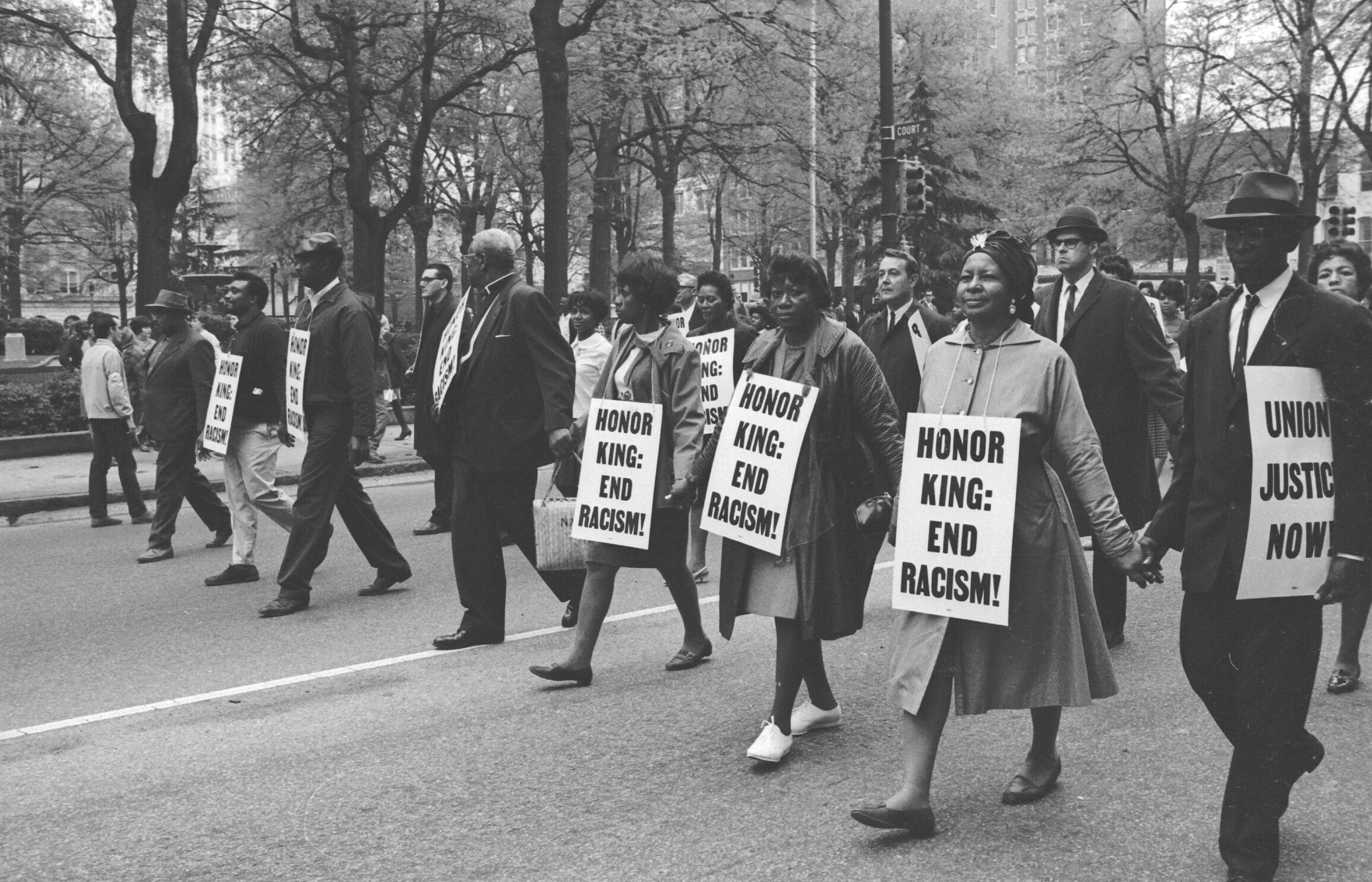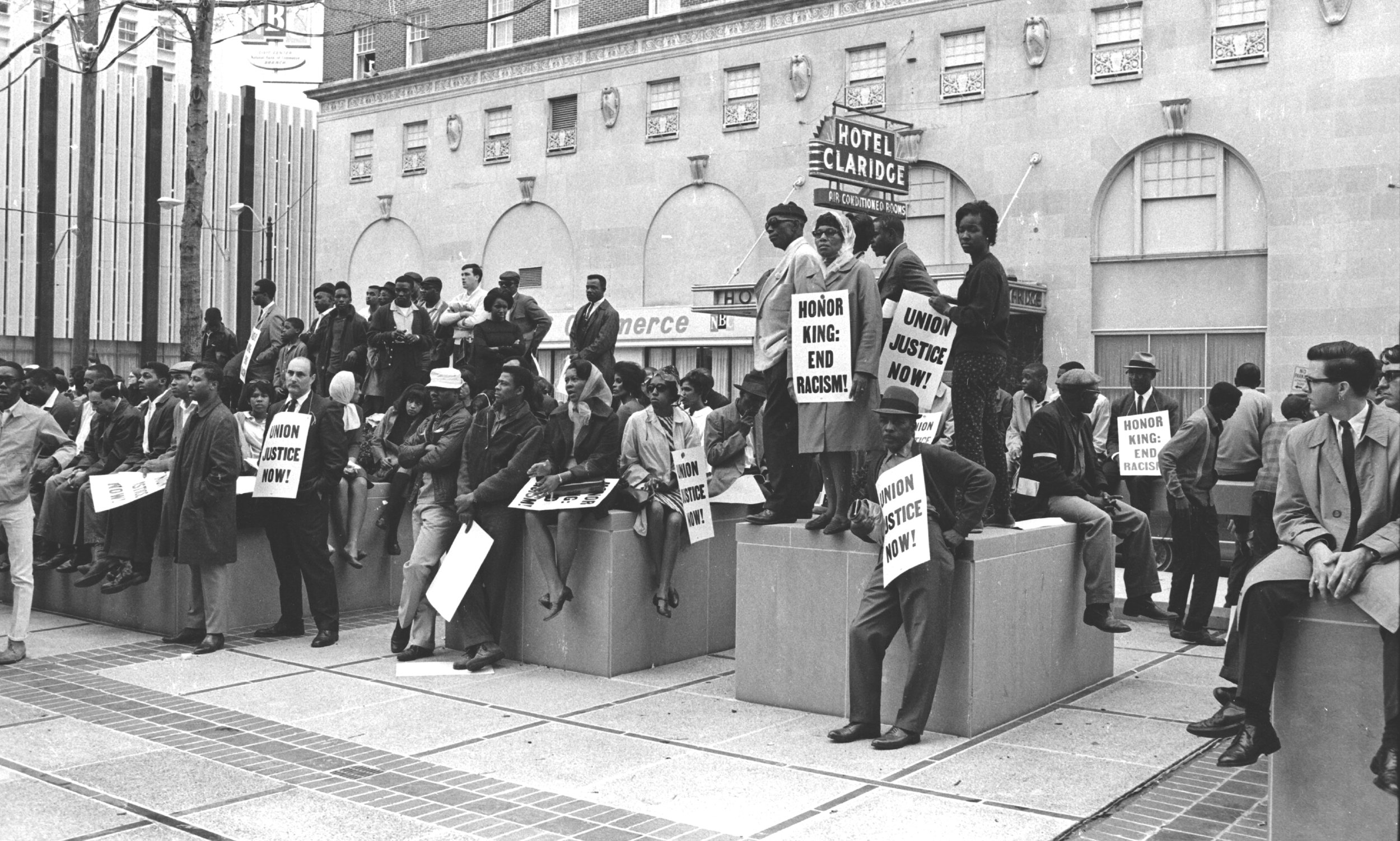
In 1968, Memphis became the epicenter of America's struggle for economic justice when predominantly Black sanitation workers rose in collective defiance. What began as a labor dispute transformed into a watershed moment for civil rights, ultimately drawing Dr. Martin Luther King Jr. to his final cause. The VTC Martin font family, named in honor of Dr. King, was born from this crucible of protest, with letterforms derived from the iconic "I AM A MAN" protest signs that demanded recognition of fundamental humanity.
Memphis in the 1960s was two separate Americas. While white Memphis enjoyed prosperity, Black sanitation workers navigated a city designed to keep them invisible except when performing degrading labor. Under Mayor Henry Loeb's administration, these men worked with decrepit trucks, endured 60-hour weeks for poverty wages, were sent home without pay when it rained, and labored without breaks. Their 1966 strike attempt had failed, underscoring a painful truth: in Memphis, Black suffering was expected to remain silent.
Sanitation workers inspect a garbage truck similar to the one in which two workers were killed on Feb. 1, 1968. Courtesy of the Preservation and Special Collections Department, University Libraries, University of Memphis.
On February 1, 1968, Echol Cole and Robert Walker were crushed to death by faulty equipment in their garbage truck. These weren't isolated incidents but the culmination of years of ignored safety concerns. The city's response—offering their families just one month's salary and burial expenses—revealed a callous disregard that could no longer be tolerated.
Robert Walker poses in an undated photo. He was one of two sanitation workers killed Feb. 1, 1968. Photo supplied by Walker’s sister, Veria Ford. View Source
On February 12, 1968, 1,300 sanitation workers walked off jobs that paid so little many qualified for welfare while working full-time. Led by T.O. Jones, they demanded union recognition, better safety standards, and decent wages. Workers carried handmade signs with simple, direct messages about their conditions. Mayor Loeb's swift rejection of their demands set the stage for an escalating struggle.
An overflowing litter basket draws a glance from one of the 200 marchers in downtown Memphis. (Photo by Bettmann Archive/Getty Images) Learn More
When Mayor Loeb's police unleashed batons, mace, and attack dogs on peaceful protesters, they attacked a community's awakening sense of possibility. Police photographed protesters as threats of retaliation, while Black city employees were warned they'd lose jobs if they supported the strike. The city used court injunctions to limit protests while hiring replacement workers.
Police clash with striking workers in downtown Memphis on Feb. 23, using riot control gas to disperse the crowd. (Getty Images)
Patrolman K.N. Overall watches as two non-striking workers clean downtown during the strike. (Photo by Bettmann Archive/Getty Images) Learn More
Reverend James Lawson, having studied nonviolence in India, recognized something larger than a labor dispute—America's moral reckoning. Through Community on the Move for Equality (COME), Lawson transformed church basements into strategy centers. By mid-March, Lawson reached out to Dr. King, whose Poor People's Campaign focused on economic justice. King saw in Memphis the embodiment of his vision connecting racial and economic rights.
The Revs. James M. Lawson, left, and Martin Luther King Jr. hold a news conference on March 28, 1968, in Memphis. Courtesy Of The Mississippi Valley Collection/University Of Memphis Libraries.
Dr. King first came to Memphis on March 18, addressing thousands at Mason Temple. He returned on March 28 for a mass march where the iconic "I AM A MAN" signs first appeared—a revolutionary declaration of human dignity. The demonstration descended into chaos when some participants broke windows and police responded with excessive force, killing 16-year-old Larry Payne. Mayor Loeb deployed the National Guard.
Despite pressure to abandon Memphis after the March 28 violence, King returned on April 3. That evening, as a violent thunderstorm battered Memphis, King delivered his prophetic "Mountaintop" speech at Mason Temple: "I've been to the mountaintop. I've seen the Promised Land." His words hung in the air like a testament, leaving many sensing King understood the sacrifice before him.
The Rev. Ralph Abernathy, right, and Bishop Julian Smith, left, flank Dr. Martin Luther King, Jr., during a civil rights march in Memphis, Tenn., March 28, 1968. (AP Photo/Jack Thornell) Learn More
National Guard troops stand with bayonets fixed as sanitation workers march peacefully wearing “I AM A MAN” placards. (Photo by Getty Images) Learn More
At 6:01 p.m. on April 4, 1968, a single bullet at the Lorraine Motel forever altered American history. Dr. King's assassination transformed the Memphis struggle from local labor dispute into national reckoning. For the memorial march on April 8, a second set of "I AM A MAN" signs were created alongside "UNION JUSTICE NOW" and "HONOR KING: END RACISM" signs. The murder of America's apostle of nonviolence laid bare the violence inherent in the system these workers fought against.